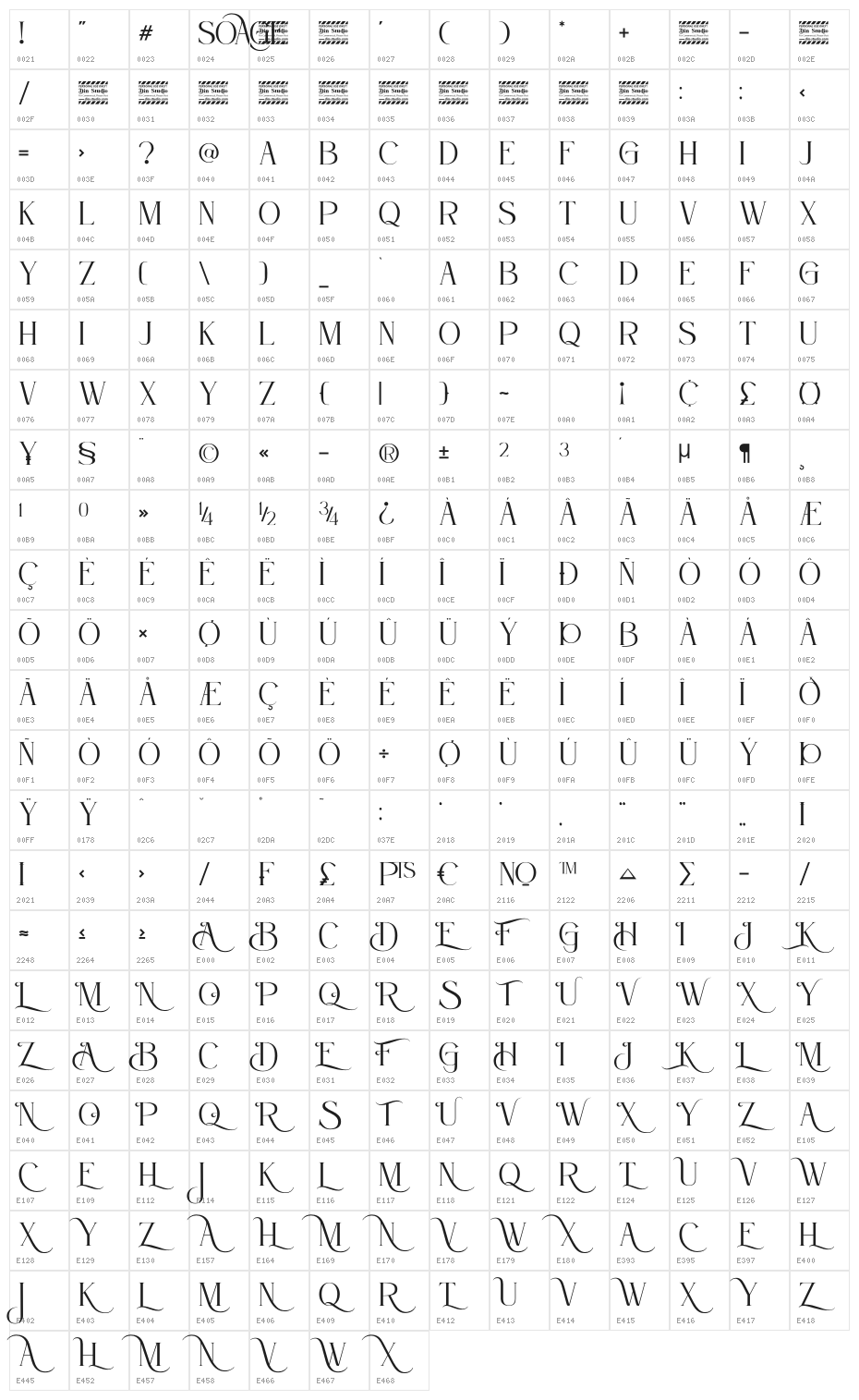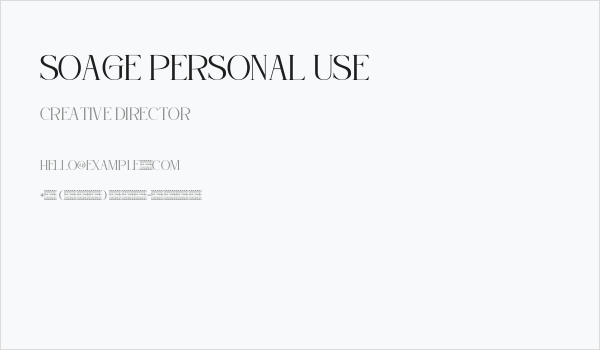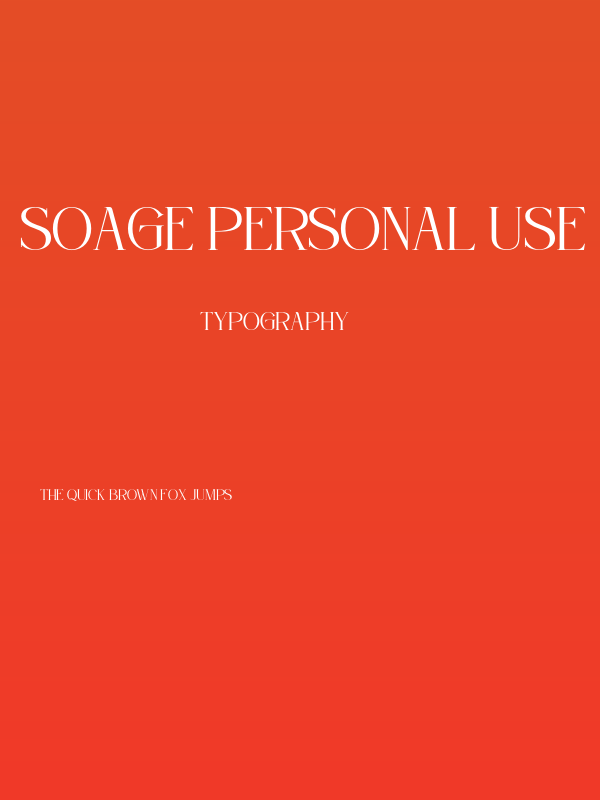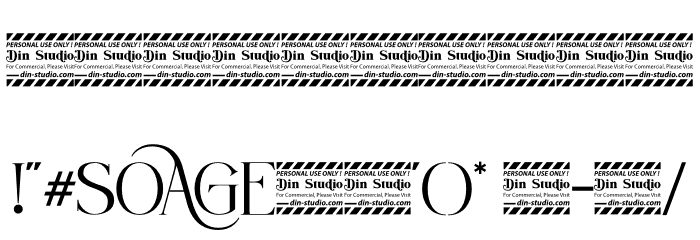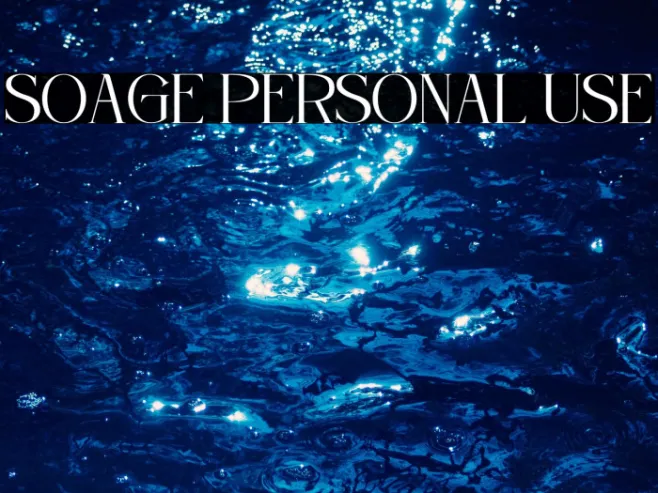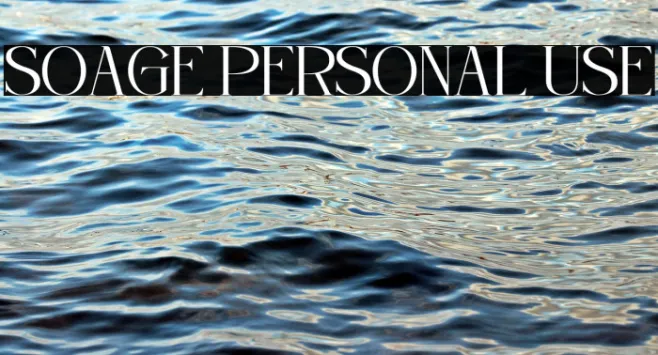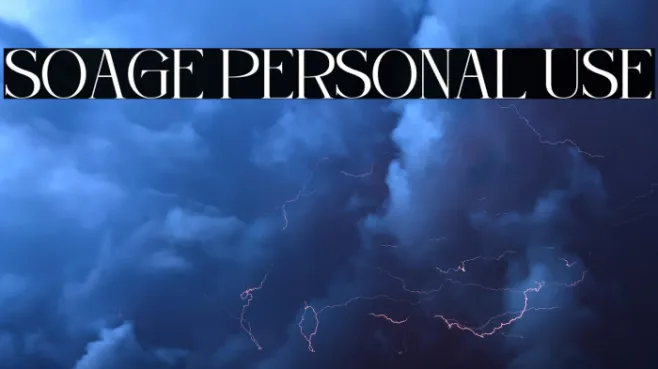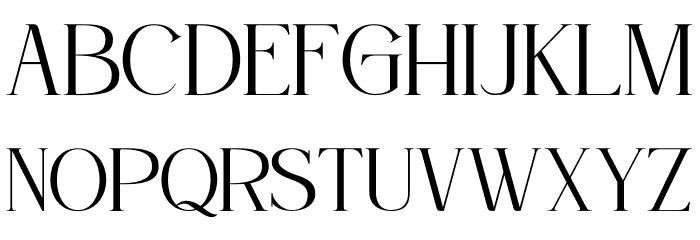
Soage Personal Use Font
Soage Personal Use Description
This font features a sophisticated and elegant design with high contrast between thick and thin strokes, giving it a refined and stylish appearance. The uppercase letters are tall and slender, with sharp serifs that add a touch of formality. The lowercase letters maintain a consistent style, complementing the uppercase with their graceful curves and balanced proportions. The numerals are clear and distinct, ensuring readability. Special characters are thoughtfully designed to match the overall aesthetic, making this font versatile for various applications.
| Proposed Projects | Ideal for luxury branding, editorial design, wedding invitations, and high-end product packaging. |